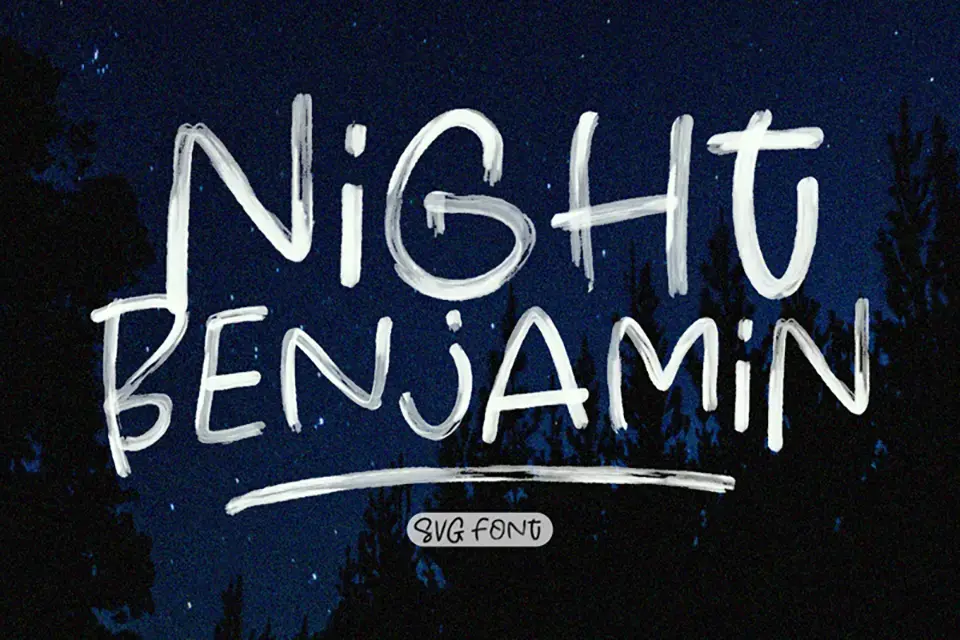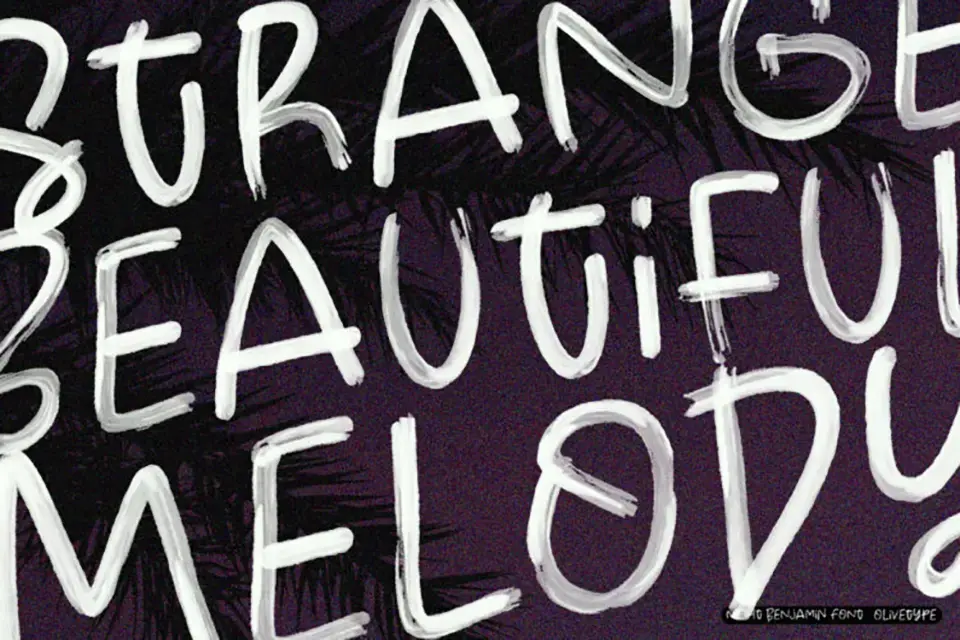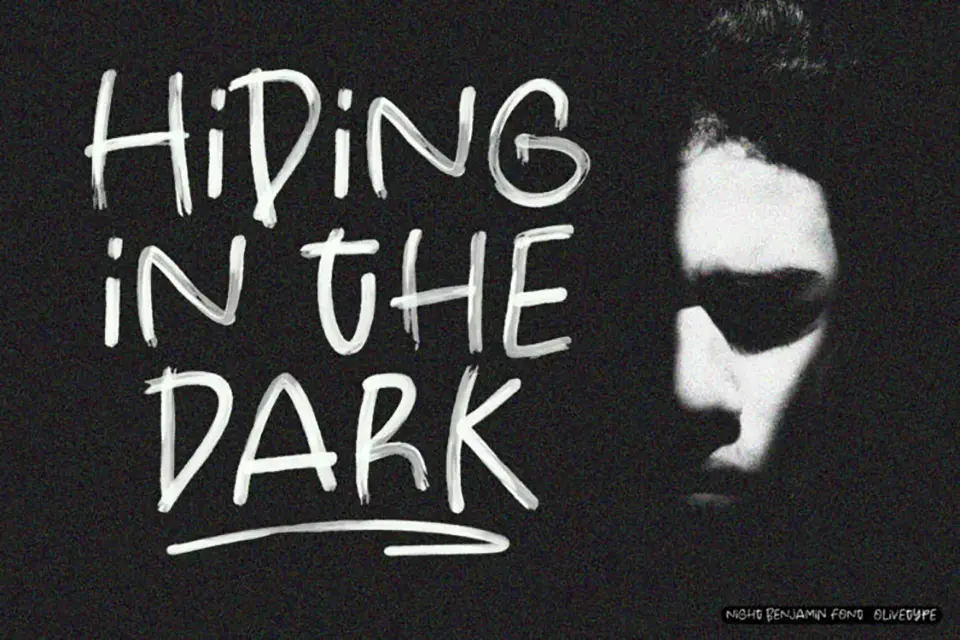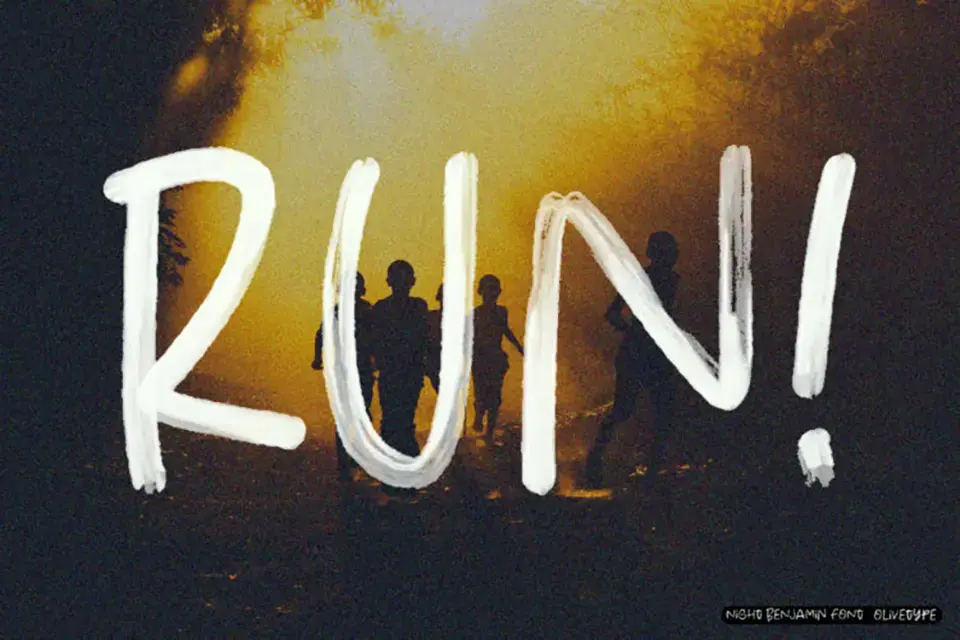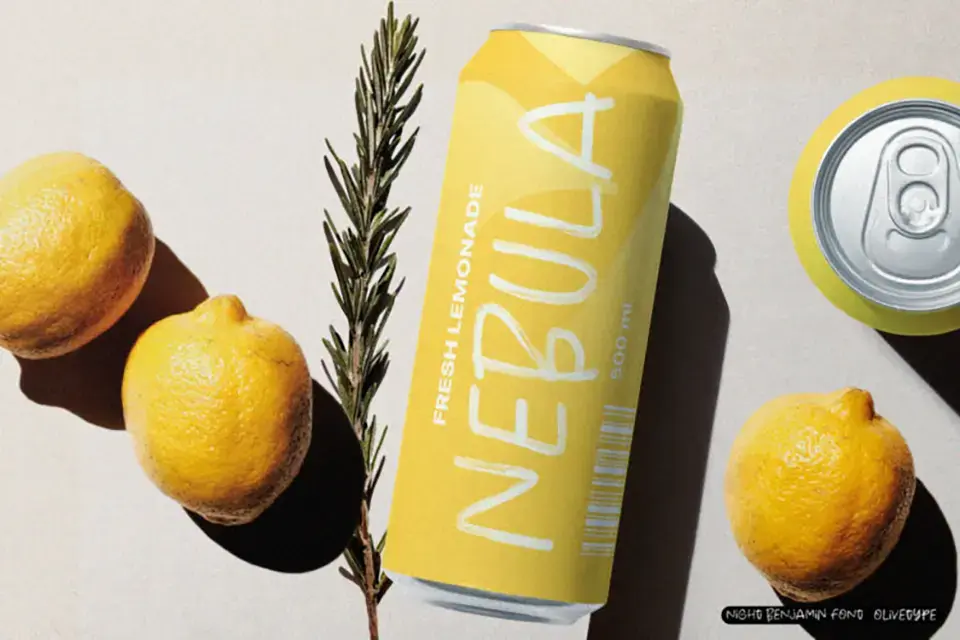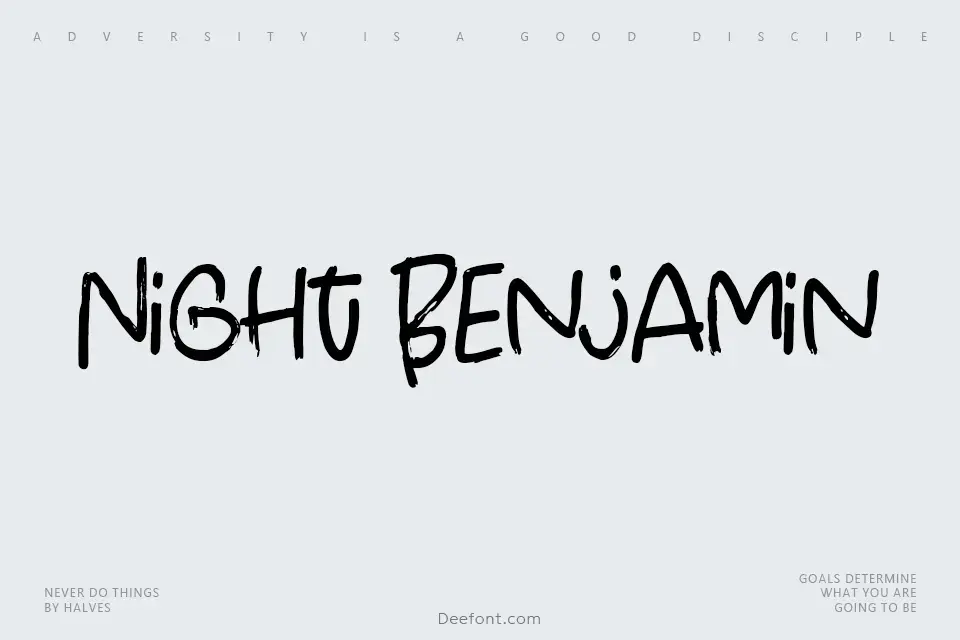
Night Benjamin Font
Night Benjamin is a gritty script trash font with rough, inky strokes, irregular edges and a distressed handmade feel that instantly evokes horror and suspense. Its bold, chaotic letterforms create a dramatic, high-impact look perfect for scary movie titles, Halloween posters, haunted house flyers, eerie social media graphics and eye-catching display headlines. Use this font when you need an edgy, fear-inducing aesthetic that still remains readable at large sizes across logos, packaging, banners and bold typography compositions.